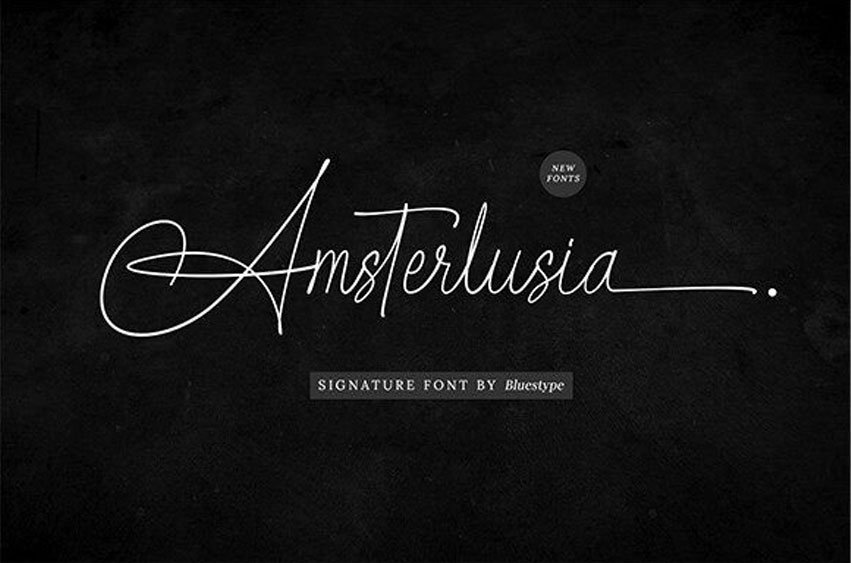
Amsterlusia Font is a sophisticated font that beautifully captures the essence of handwritten signatures.
Perfect for branding, logos, invitations, and more, Amsterlusia adds a personal and elegant touch to any project.